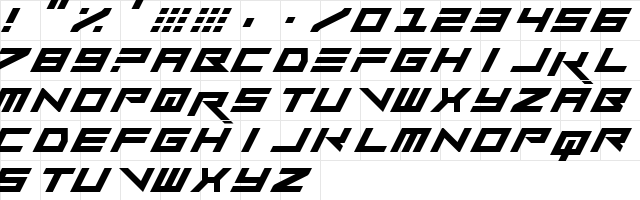
Vermin Vibes Slant Regular
| Designer | Andrew McCluskey |
Design Context for Vermin Vibes Slant Typeface
Vermin Vibes Slant is a composed and adaptable typeface that performs quietly and consistently across a wide range of design contexts.